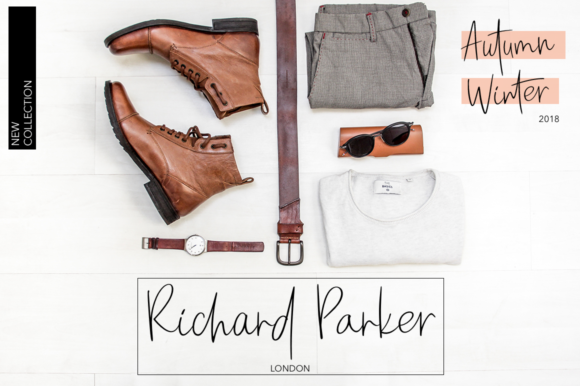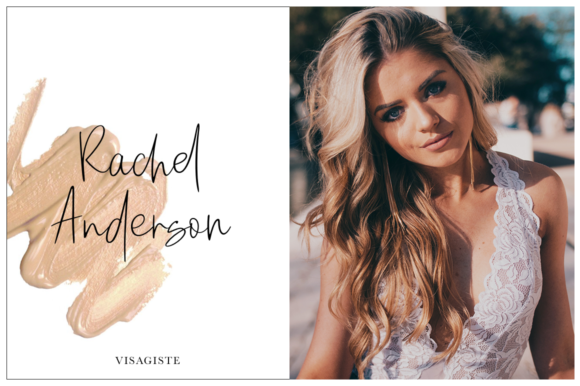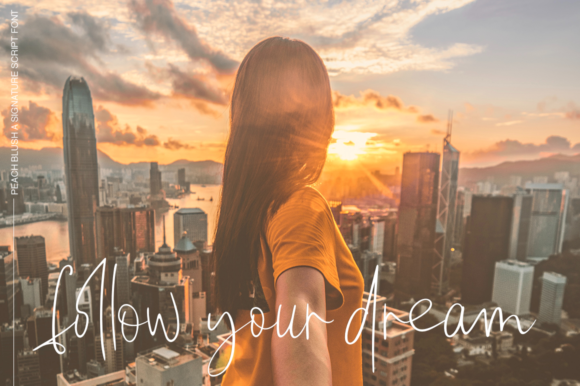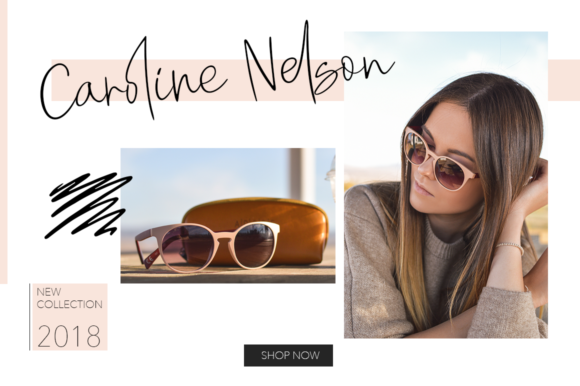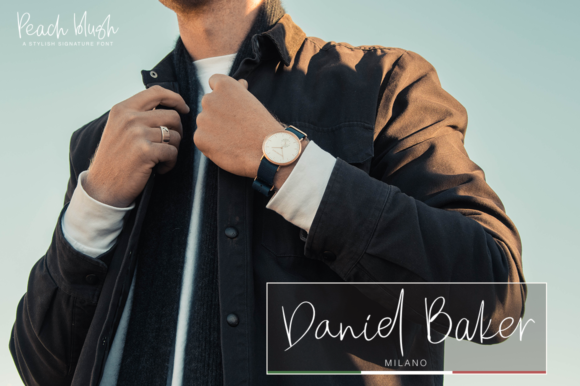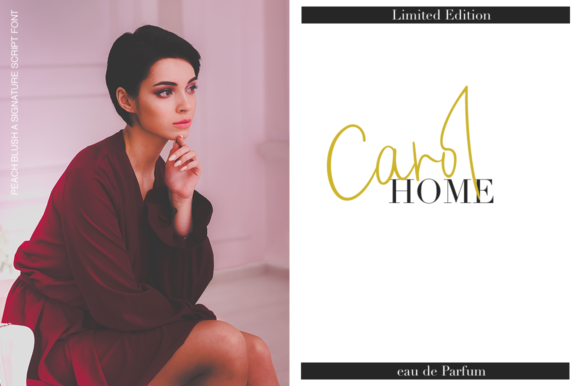
Introduction to Peach Blush Font
Have you ever stumbled upon the perfect design element that makes your creative project stand out? For designers, it’s that moment of serendipity when everything comes together in perfect harmony. That’s exactly what happens when you discover the Peach Blush Font – a stylish signature font that exudes elegance and sophistication.
Whether you’re a seasoned designer or just starting out, the Peach Blush Font is an invaluable resource that can elevate your branding and decorating projects. With its high-quality design and transparent background, this font is perfect for creating beautiful logos, wedding invitations, or even adding a touch of whimsy to your home decor.
Key Features of Peach Blush Font
- High-quality, elegant design suitable for various creative projects
- Designed with a delicate, feminine touch, ideal for wedding invitations, greeting cards, and other feminine-themed designs
- Includes a range of characters, including uppercase and lowercase letters, numbers, and punctuation marks
Honest Review: Peach Blush Font
As a designer, I’m always on the lookout for high-quality design resources that can elevate my creative projects. Recently, I had the chance to work with the Peach Blush Font, and I’m excited to share my honest review.
- ✨ Beautiful, soft brush script design that’s perfect for adding a touch of elegance to any project.
- ✨ High-quality font that’s well-suited for a variety of creative projects, from invitations to social media graphics.
- ✨ The transparent background option allows for seamless integration with any background image or color.
- ⚠️ The font may not be suitable for projects that require a bold, dramatic effect, as it’s designed for more subtle applications.
Overall, I was impressed with the Peach Blush Font’s quality and versatility. While it may not be perfect for every project, it’s a valuable addition to any designer’s toolkit. I appreciate that the font is available as a free download, making it accessible to designers of all levels.
Tips for Getting the Most Out of Peach Blush Font
To get the most out of Peach Blush Font, use it in conjunction with other design elements, such as images and graphics. Experiment with different font sizes and styles to create a unique look. You can also use Peach Blush Font to create a consistent brand identity across multiple projects.
Peach Blush Font is commonly used for creative projects, such as wedding invitations, baby showers, and other social events. It’s also a popular choice for blog posts, social media graphics, and other digital content. With its high-quality design and transparent background, Peach Blush Font is a versatile design resource that can be used in a variety of contexts.